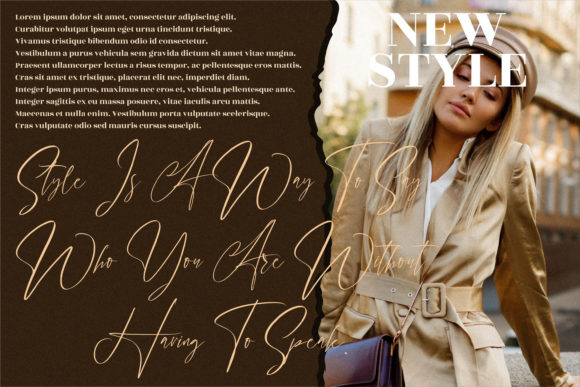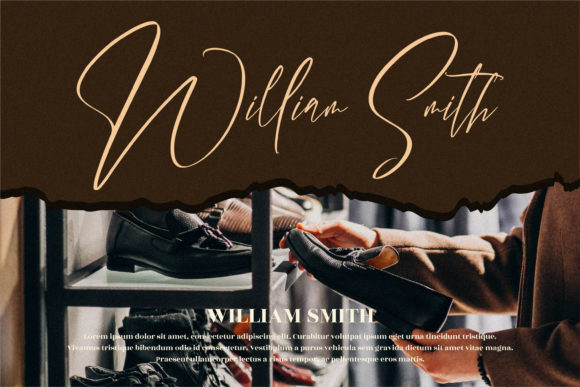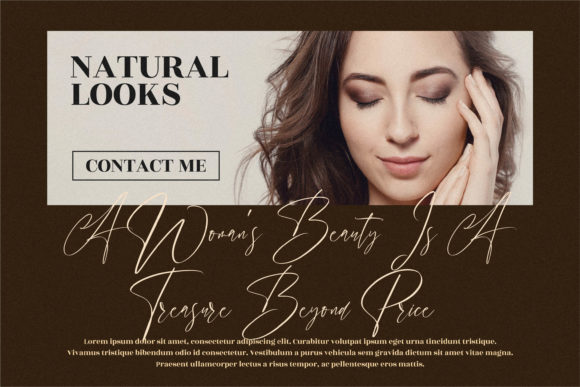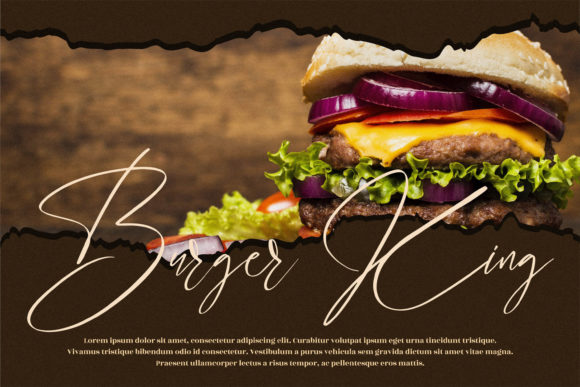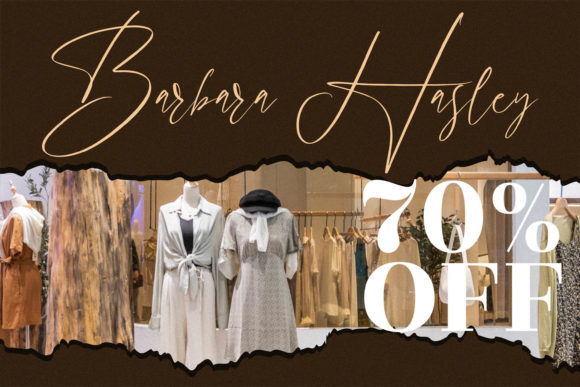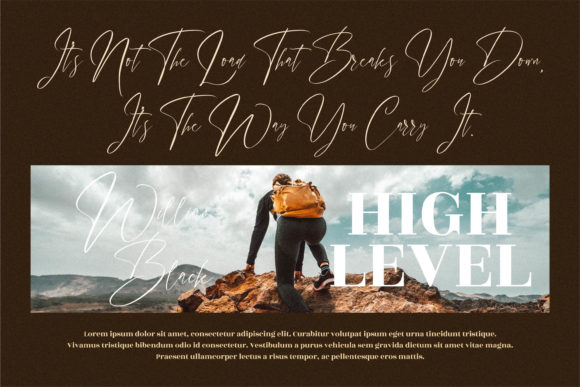
Introduction to Handover Signature Font
Have you ever stared at a blank page, waiting for inspiration to strike, and suddenly, the perfect idea hits you? That’s exactly what happens when you’re working on a creative project, and you need a design resource that truly makes a statement. The Handover Signature Font is one of those game-changing elements that can elevate your design from ordinary to extraordinary.
This beautiful light handwritten font has a unique feel and a stunning impact that will add a luxury spark to any project you wish to create. With its high-quality design, it’s the perfect choice for designers who want to make a lasting impression. Whether you’re working on a commercial project or a personal endeavor, the Handover Signature Font is a valuable asset that will help you stand out from the crowd.
One of the best things about this font is its versatility – you can use it with a transparent background to create a clean and modern look, or pair it with a solid color to add some depth and texture. And the best part? It’s available for free download, making it an accessible design resource for creatives of all levels.
Key Features of Handover Signature Font
- High-quality design resource ideal for creative projects, presentations, and reports.
- Unique, elegant, and professional font style suitable for various industries and applications.
- Includes a transparent background, allowing for seamless integration with any design or image.
- Includes multiple font sizes, ranging from 12pt to 72pt, to accommodate various design needs.
- Features a high-resolution design (300 DPI) for crisp and clear display in print and digital formats.
- Perfect for adding a touch of professionalism and creativity to business documents, reports, and presentations.
Honest Review: Handover Signature Font
I recently stumbled upon the Handover Signature Font, and I must say it’s a high-quality design resource that has been a game-changer for my creative projects. As a designer, I appreciate fonts that can add a personal touch to my work, and this one definitely delivers.
- ✨ The font is highly customizable, allowing me to adjust the color, size, and style to fit my design needs.
- ✨ The transparent background makes it easy to layer over images and other design elements.
However, I do have a few reservations:
- ⚠️ The font can be a bit too ornate for some designs, so it’s essential to use it thoughtfully.
- ⚠️ The lack of extensive documentation can make it challenging for beginners to use the font effectively.
Overall, I’m impressed with the Handover Signature Font, and I think it’s a valuable addition to any designer’s toolkit. While it may have some limitations, its high quality and versatility make it a great choice for creative projects.
Use the Handover Signature Font in high-quality designs for creative projects. It’s an excellent design resource for creating professional-looking documents, presentations, or social media graphics. This font is ideal for use cases such as:
- Business proposals and reports
- Marketing materials and flyers
- Personal branding and social media profiles
One of the key benefits of this font is its versatility. With a transparent background, you can easily integrate it into any design project, from logos to business cards. Plus, it’s available for free download, making it an accessible and valuable resource for designers of all levels. Don’t miss out on the opportunity to elevate your design game with the Handover Signature Font. Download it today and discover a world of creative possibilities!